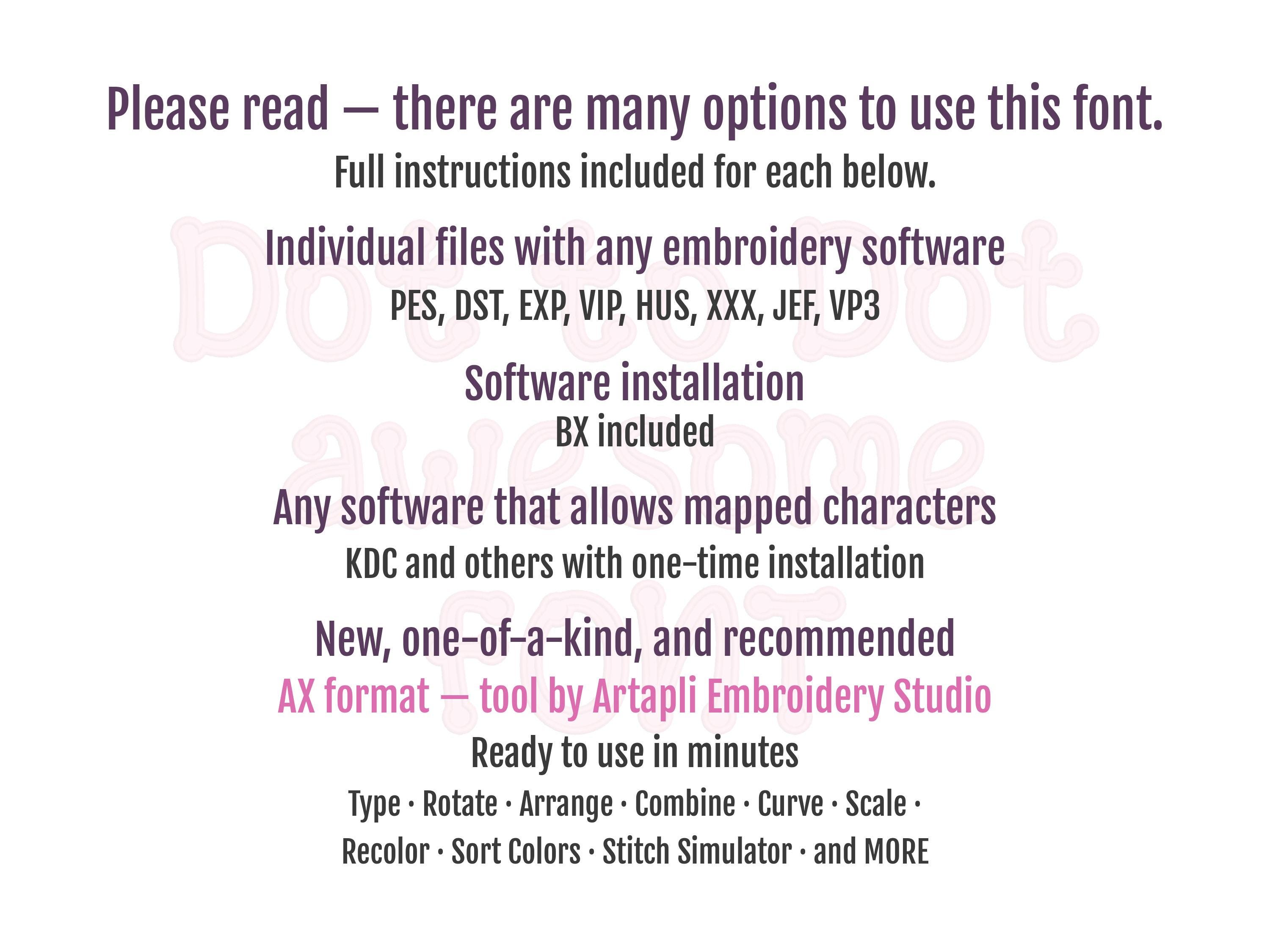
Monogram Applique Font Dot to Dot kids awesome Font alphabet machine embroidery designs letters numbers sizes 2.3, 2.8, 3.4, 4, 5 inches BX
Entire alphabet uppercase and lowercase letters, numbers, and punctuation.